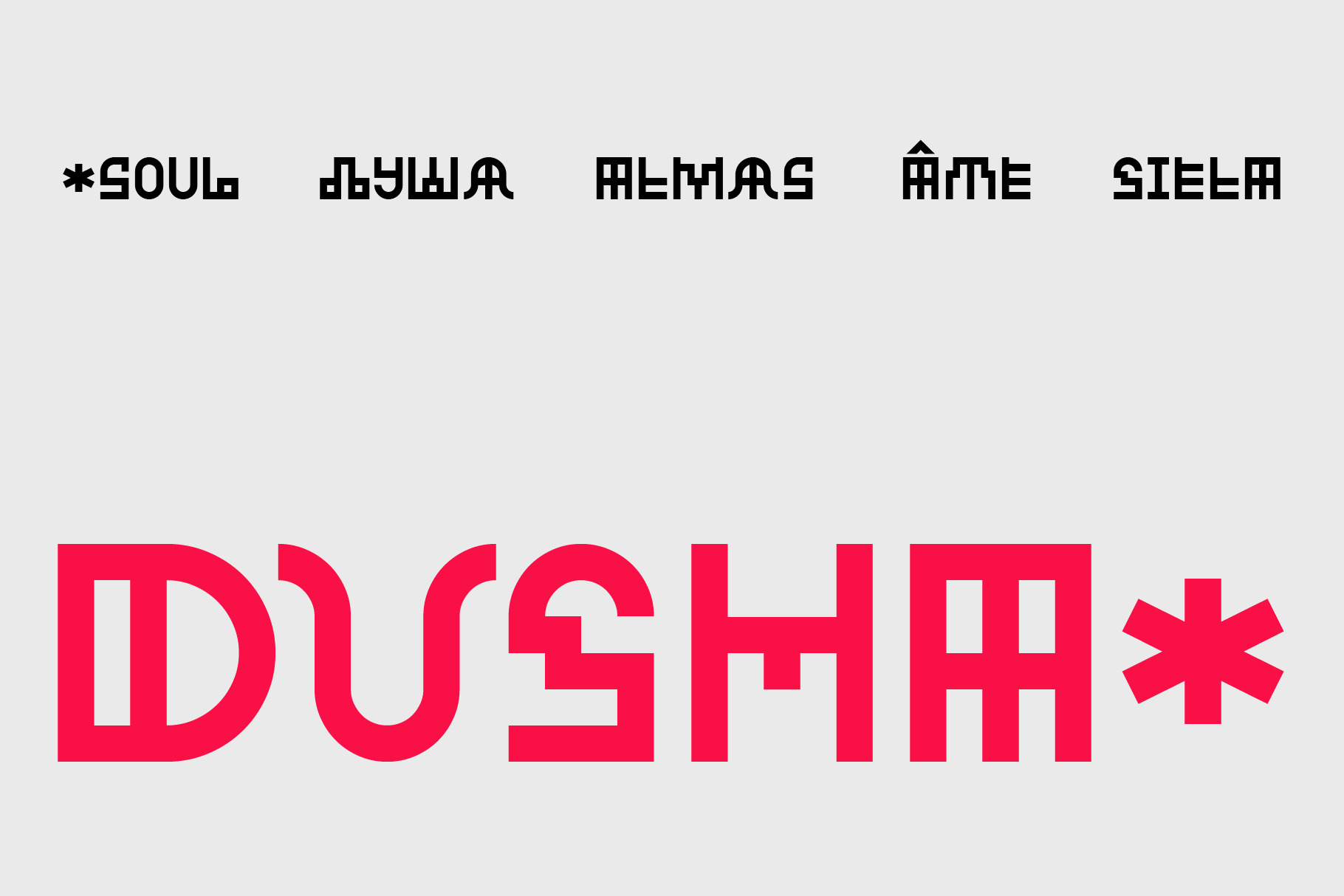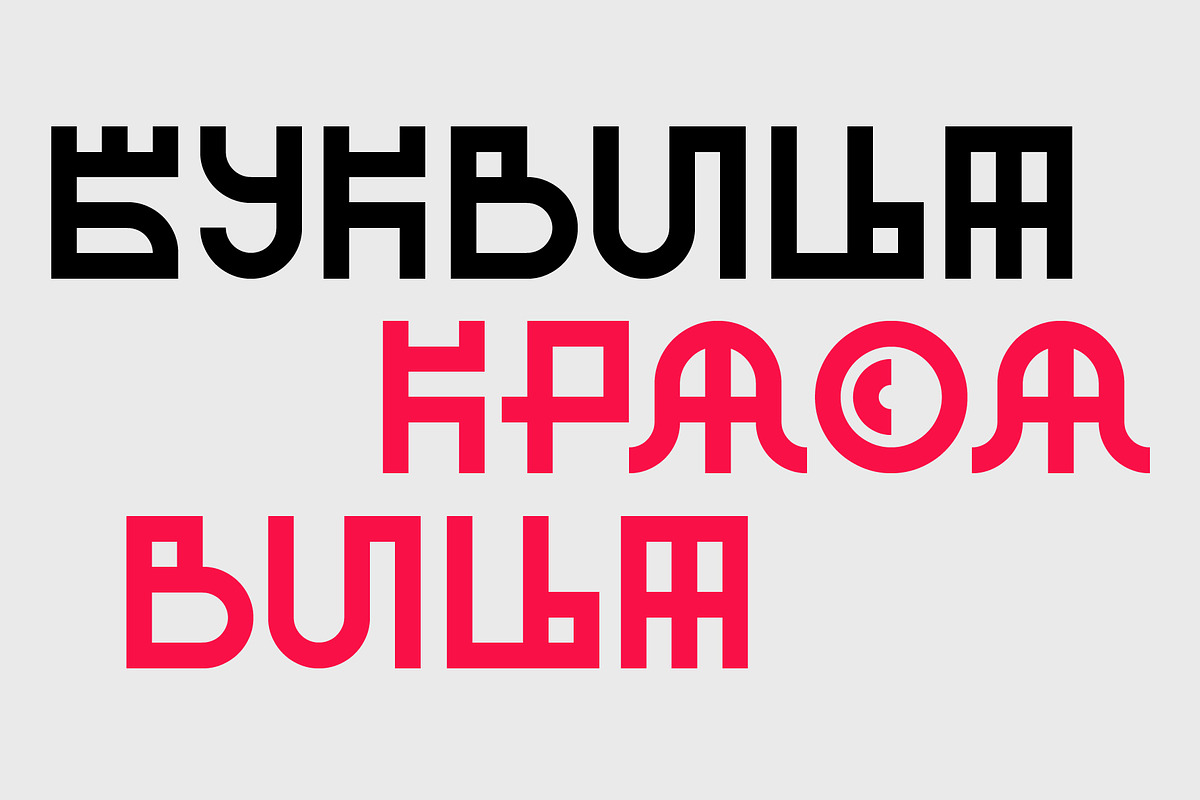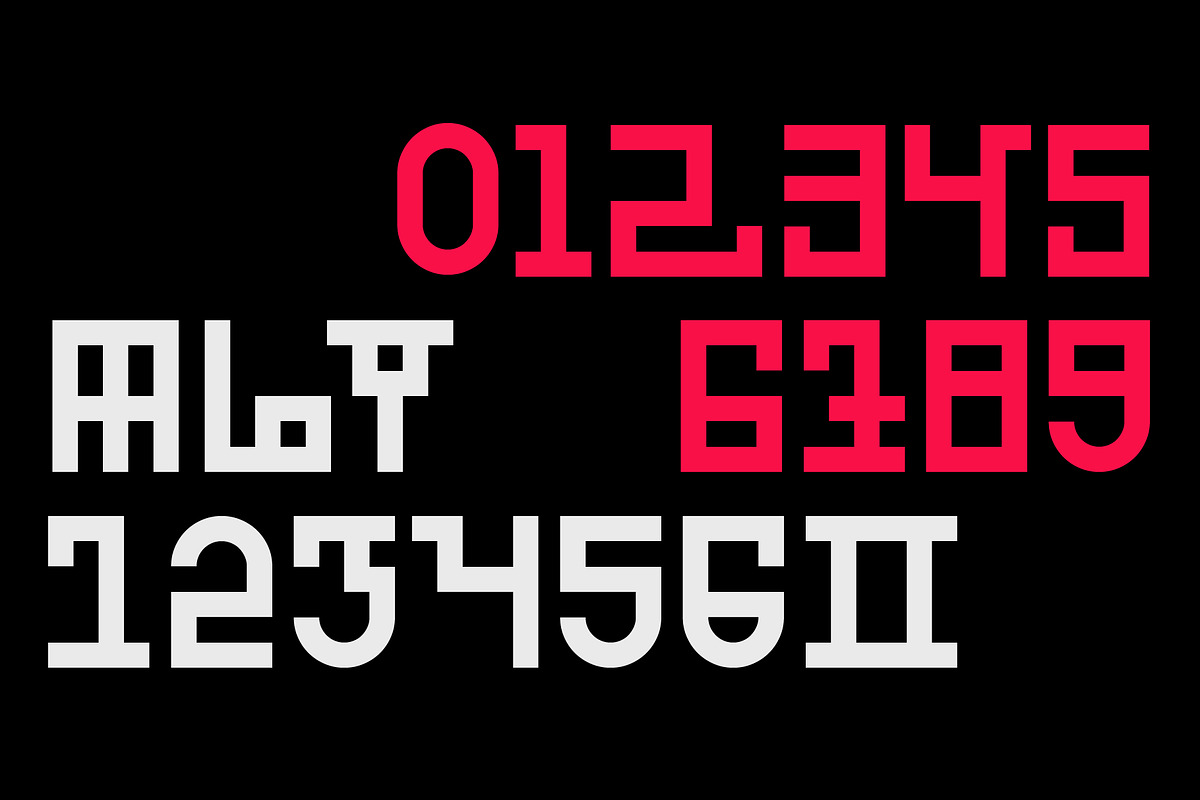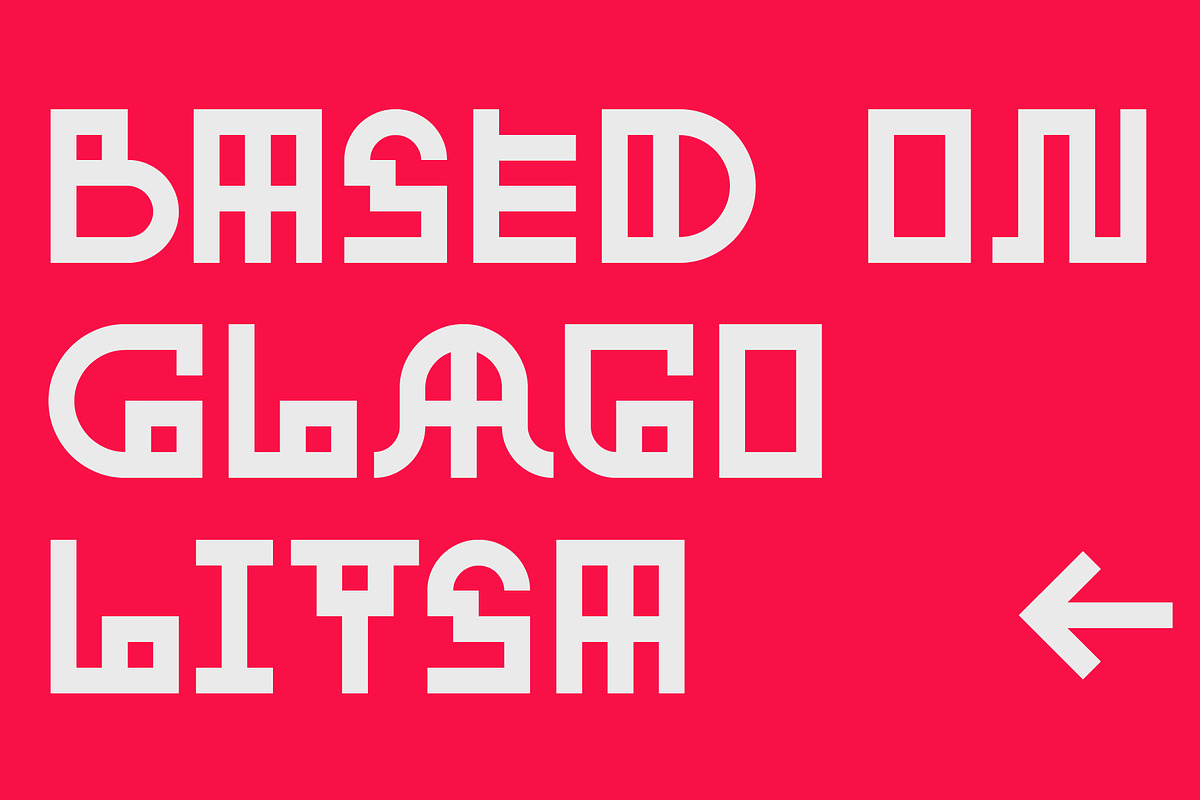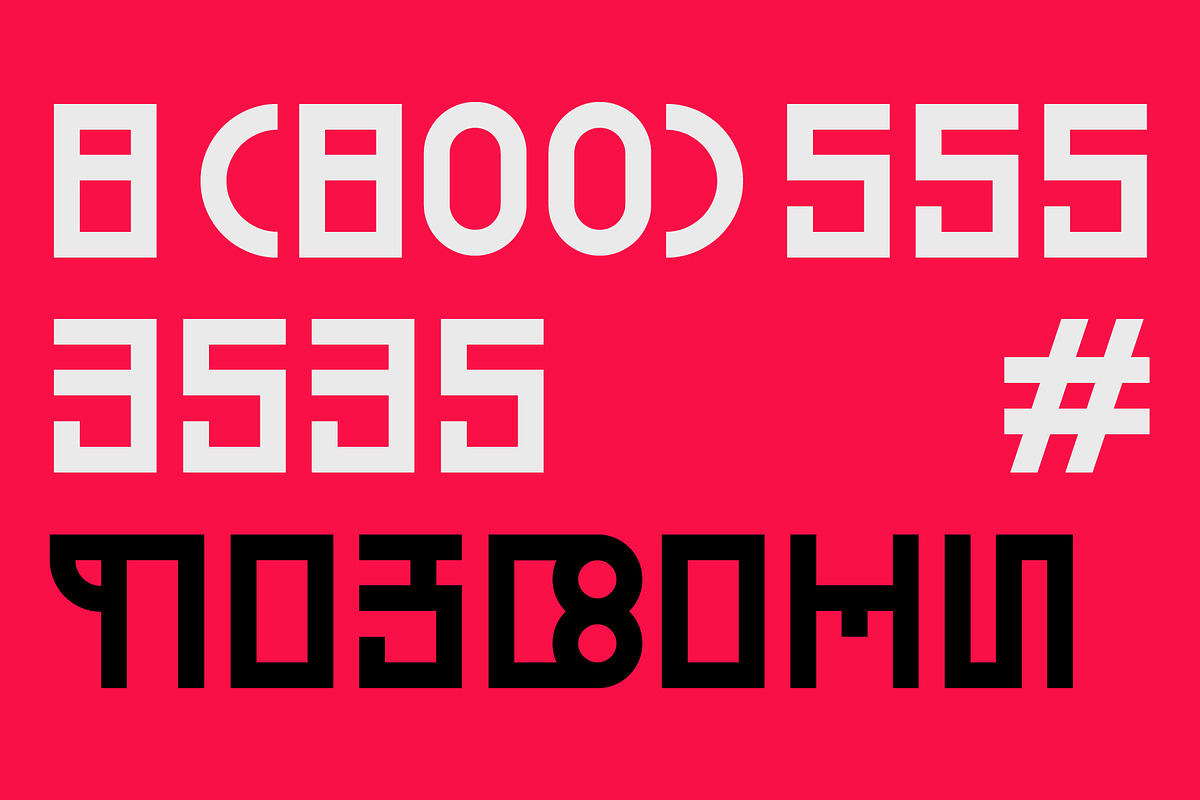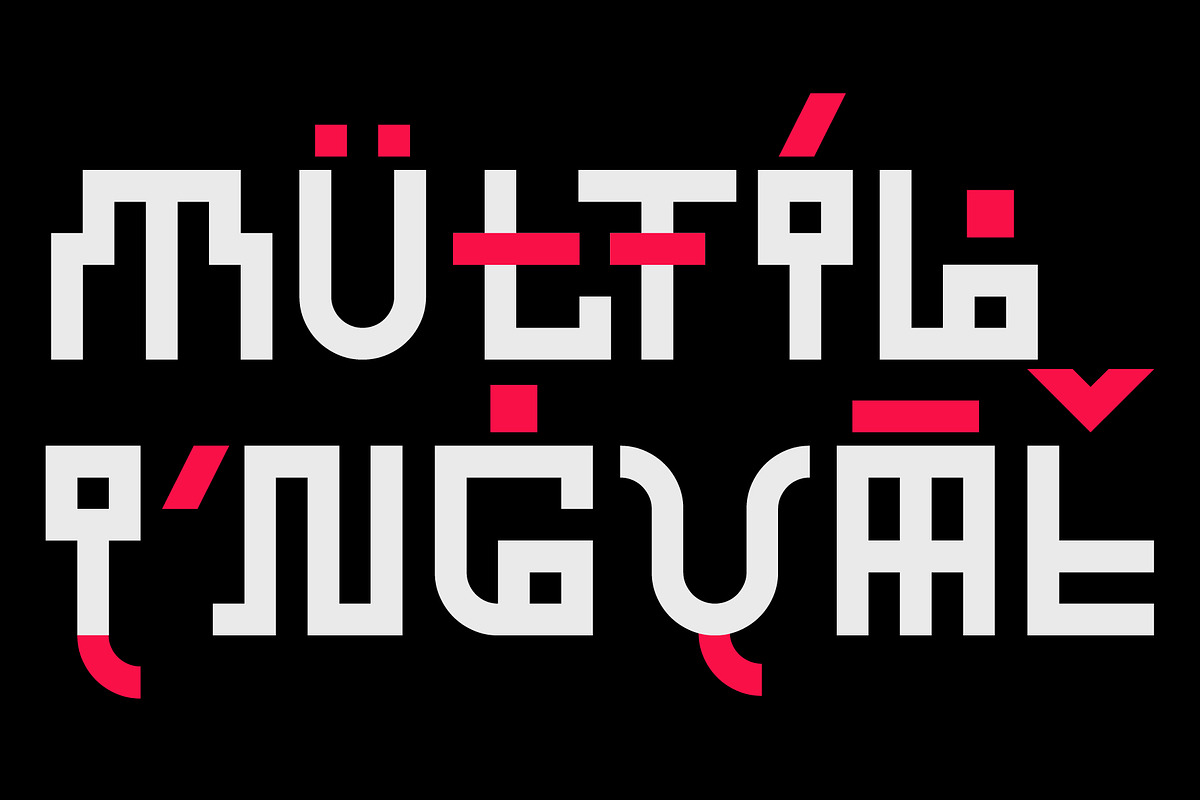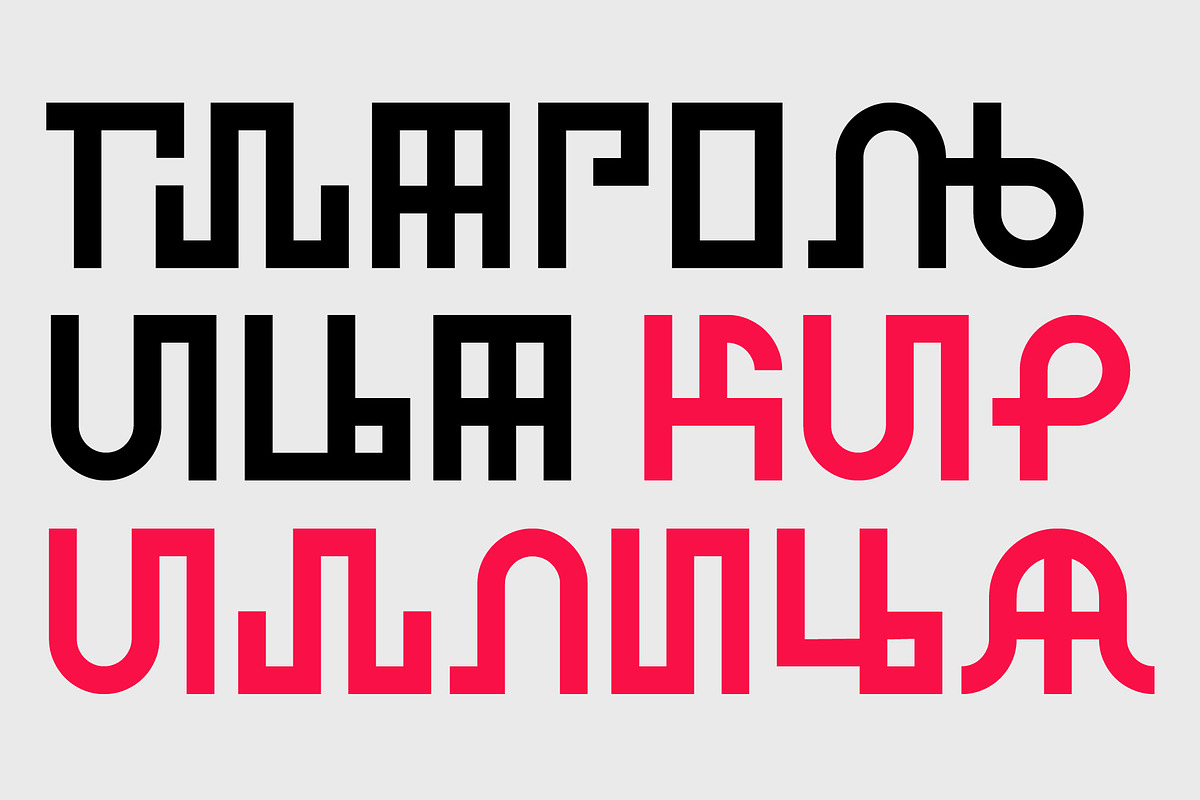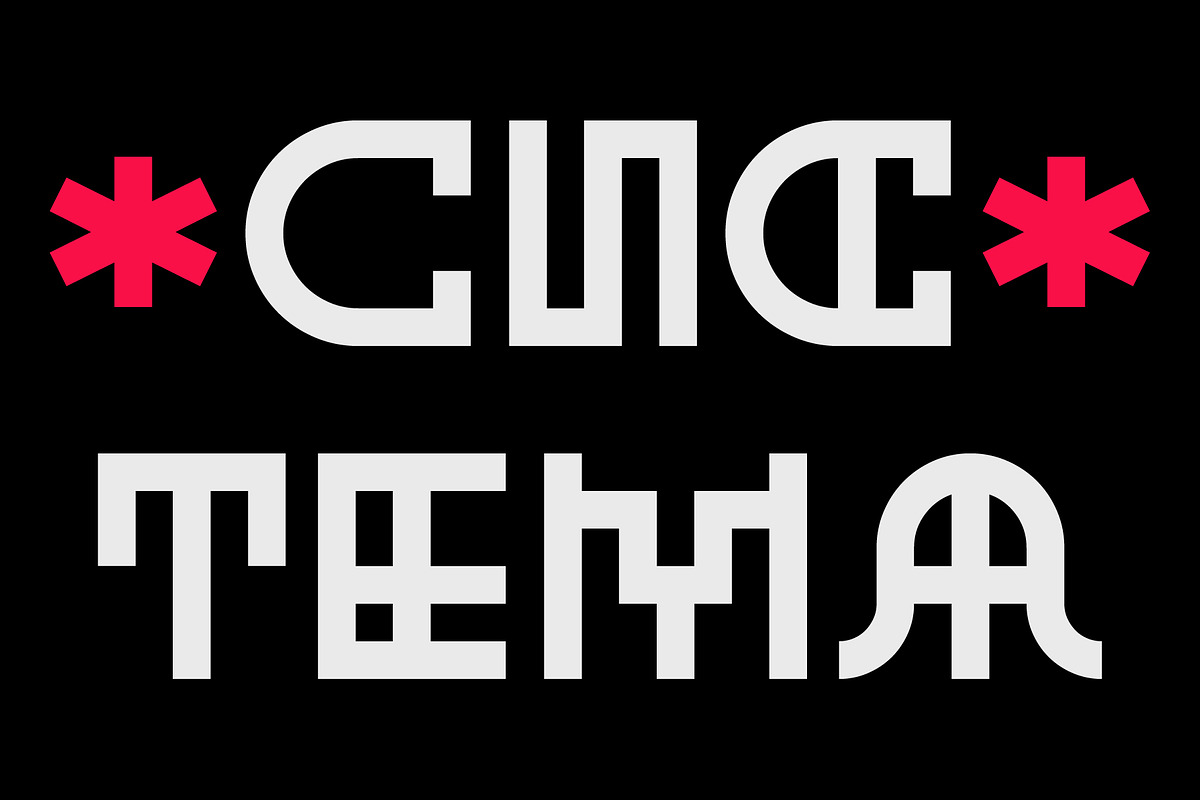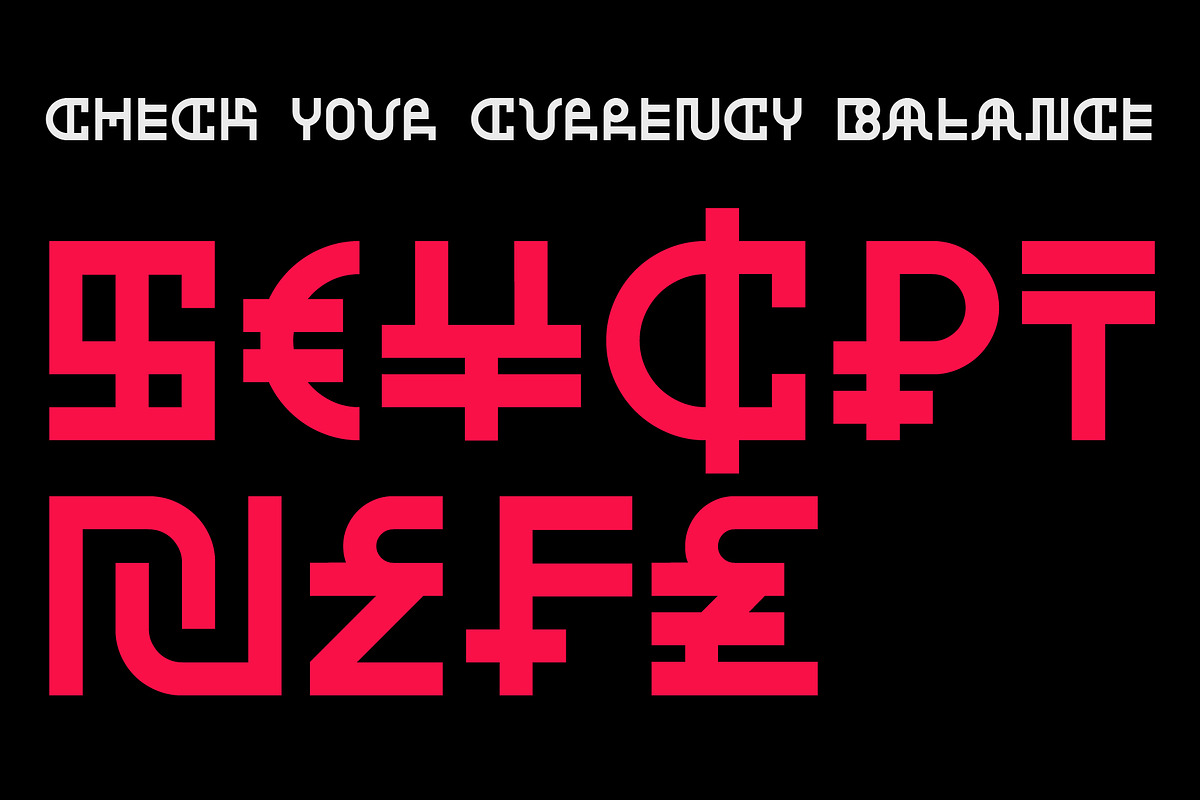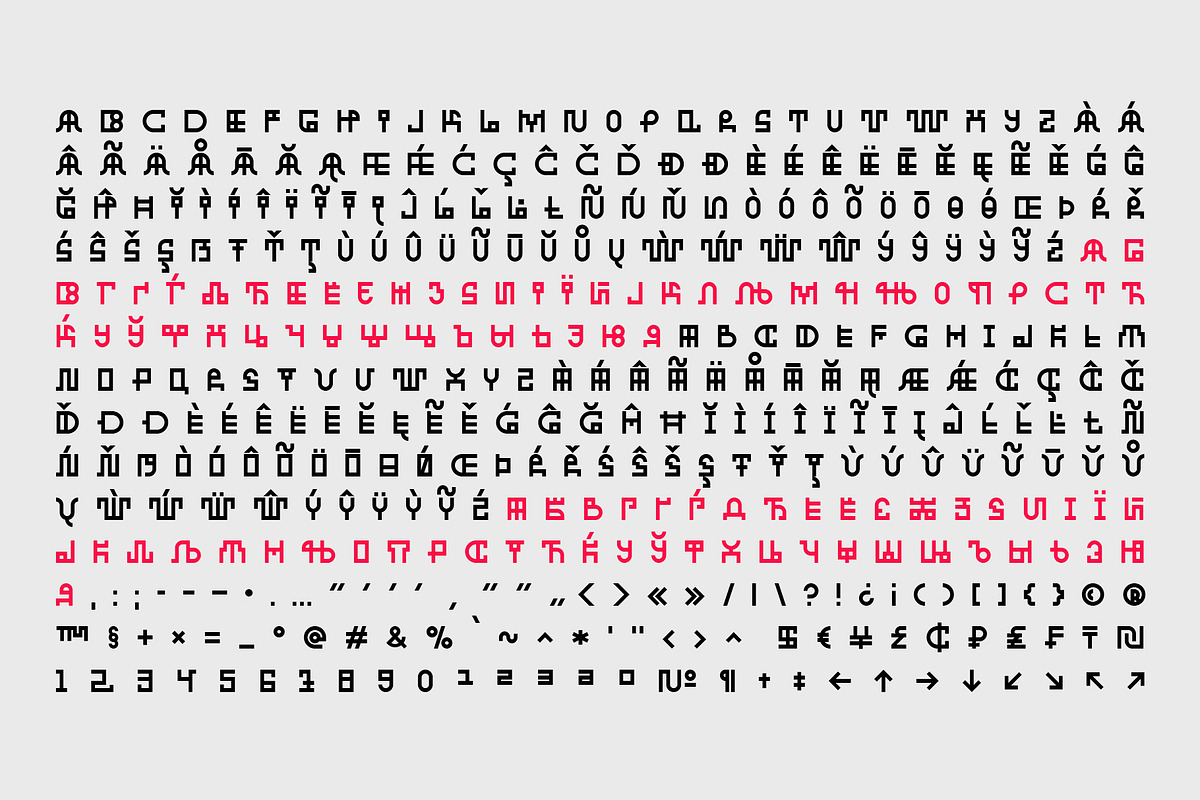
SK Dusha — Geometric Typeface
SK Dusha is a playful geometric decorative font based on the combination of the modern Cyrillic alphabet and Glagolitic characters — the ancient Eastern European alphabet. Each letter and number of this font has a stylistic alternative, which increase the variable capabilities of this typeface. In addition, the font supports a multilingual set — extended Latin and Cyrillic, which makes it available to almost the whole world. Now in every corner it will be possible to get acquainted with the unique forms and geometry of Slavic writing, which is available for use in modern design.